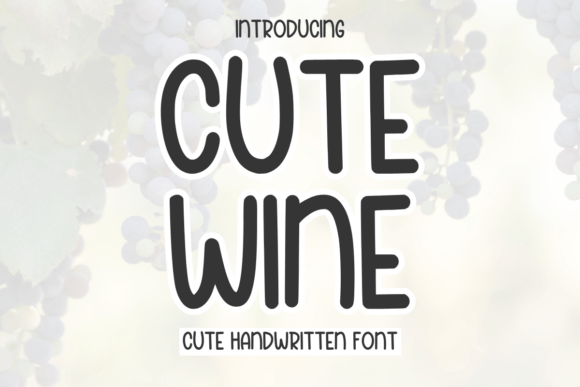
Cute Wine Font: A Whimsical and Playful Typeface for Your Brand
In the world of typography, fonts play a crucial role in conveying the tone and personality of a brand. When it comes to creating a memorable and engaging visual identity, the right font can make all the difference. If you’re looking for a font that exudes warmth, friendliness, and playfulness, look no further than Cute Wine Font. In this article, we’ll explore the features and benefits of Cute Wine Font, and how it can elevate your brand’s visual identity.
What is Cute Wine Font?
Cute Wine Font is a handwritten font with bold, rounded characters that radiate warmth and approachability. Designed to be both fun and elegant, this font is perfect for brands that want to convey a sense of playfulness and whimsy. With its smooth lines and rounded edges, Cute Wine Font is sure to capture the hearts of your audience and leave a lasting impression.
Key Features of Cute Wine Font
- Handwritten style: Cute Wine Font boasts a beautiful, handwritten style that gives it a personal and human touch.
- Bold and rounded characters: The font’s bold and rounded characters make it perfect for headlines, titles, and short phrases.
- Warm and inviting: The font’s warm and inviting tone makes it ideal for brands that want to convey a sense of friendliness and approachability.
- Highly versatile: Cute Wine Font can be used for a wide range of applications, from product packaging to kids’ apparel, toy branding, and whimsical quotes.
Use Cases for Cute Wine Font
Cute Wine Font is an incredibly versatile font that can be used in a variety of contexts. Here are some use cases where this font truly shines:
Product Packaging
When it comes to product packaging, Cute Wine Font can add a touch of personality and whimsy to your brand’s packaging. Whether you’re selling food, beverages, or household products, this font can help your brand stand out on store shelves.
Kids Apparel
Cute Wine Font is perfect for kids’ apparel, such as t-shirts, hoodies, and onesies. The font’s playful and fun design makes it ideal for kids’ fashion brands that want to create a memorable and engaging visual identity.
Toy Branding
Toys and games are meant to be fun and engaging, and Cute Wine Font can help toy brands achieve this goal. With its bold and rounded characters, this font can add a touch of playfulness to toy packaging, branding, and marketing materials.
Whimsical Quotes
Cute Wine Font is also perfect for creating whimsical quotes and phrases that can be used on social media, posters, and other marketing materials. The font’s warm and inviting tone makes it ideal for sharing inspiring and uplifting messages.
Benefits of Using Cute Wine Font
So why should you use Cute Wine Font for your brand? Here are some benefits of using this font:
Stand Out from the Crowd
In a world where fonts are often generic and bland, Cute Wine Font can help your brand stand out from the crowd. With its unique and playful design, this font can help you create a memorable and engaging visual identity.
Convey a Sense of Friendliness
Cute Wine Font is designed to convey a sense of friendliness and approachability. By using this font, you can create a warm and inviting tone that resonates with your audience.
Increase Engagement
The playful and fun design of Cute Wine Font can help increase engagement and interaction with your brand. Whether you’re creating social media posts, product packaging, or marketing materials, this font can help capture the attention of your audience.
How to Use Cute Wine Font
Using Cute Wine Font is easy and straightforward. Here are some tips on how to use this font effectively:
Pair it with Other Fonts
Cute Wine Font can be paired with other fonts to create a unique and engaging visual identity. Try pairing it with sans-serif fonts for a modern look or with script fonts for a more elegant feel.
Use it in Headlines and Titles
Cute Wine Font is perfect for headlines and titles, where its bold and rounded characters can make a big impact. Use it to create attention-grabbing headlines that capture the attention of your audience.
Experiment with Colors
Cute Wine Font can be used with a wide range of colors to create different moods and effects. Experiment with bright and bold colors for a playful look or with pastel colors for a softer feel.
In conclusion, Cute Wine Font is a whimsical and playful typeface that can elevate your brand’s visual identity. With its bold and rounded characters, warm and inviting tone, and high versatility, this font is perfect for brands that want to convey a sense of friendliness and approachability. Whether you’re creating product packaging, kids’ apparel, toy branding, or whimsical quotes, Cute Wine Font is sure to make a lasting impression.